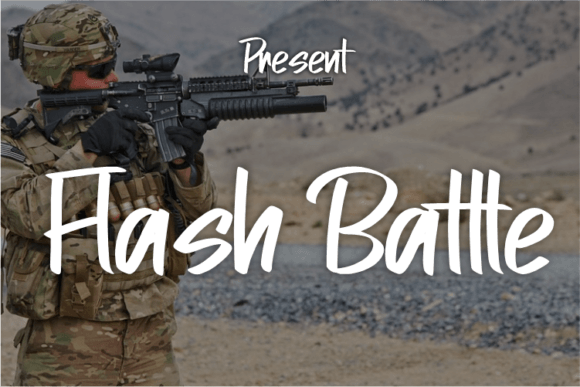
Introduction to Flash Battle Font
Flash Battle is a trendy handwritten font with a contemporary atmosphere and impeccable form, inspired by timeless classic calligraphy.
It will add elegance and class to any of your design projects .
Flash Battle Font offers exceptional quality and versatility, making it a valuable addition to your design toolkit. Whether you’re creating for personal projects or commercial use, Flash Battle Font delivers professional results.